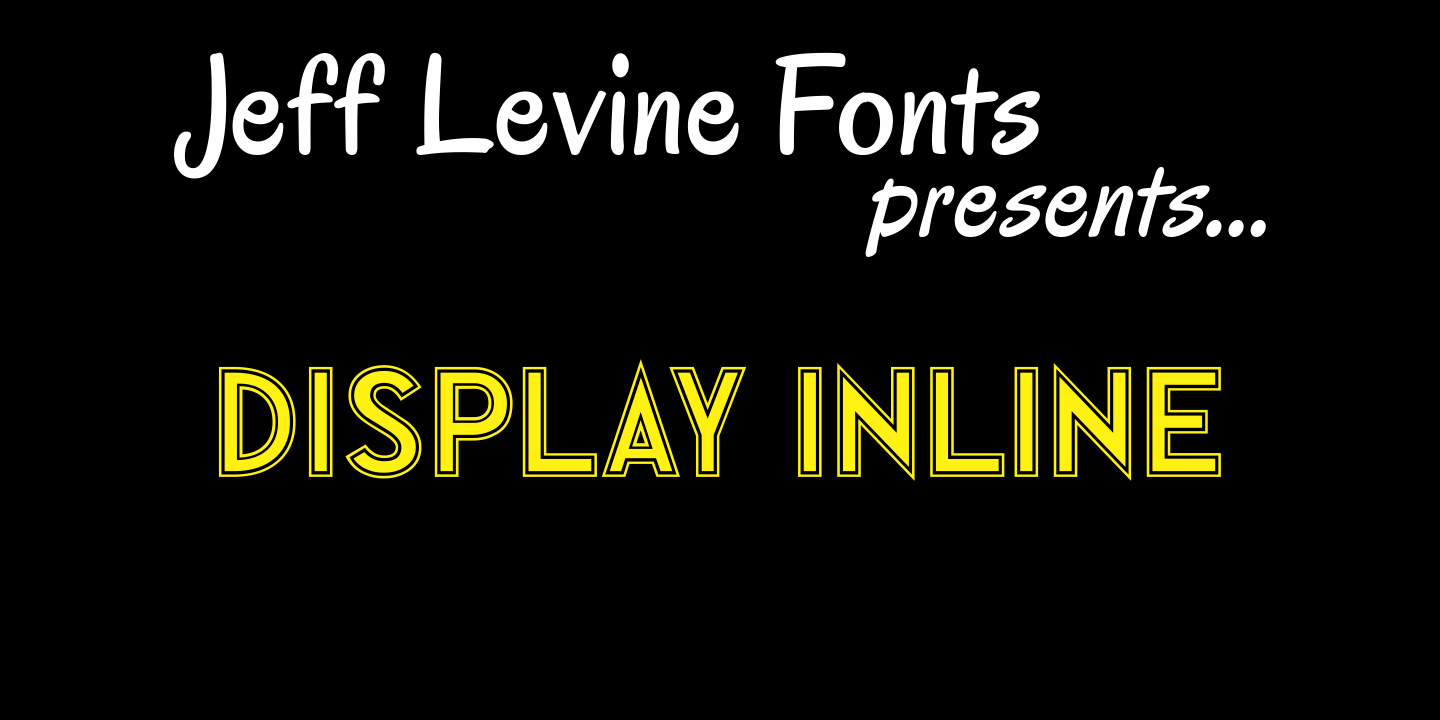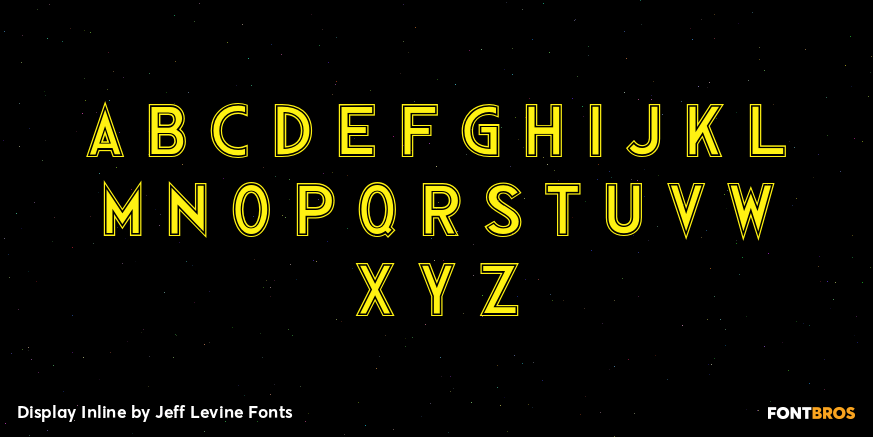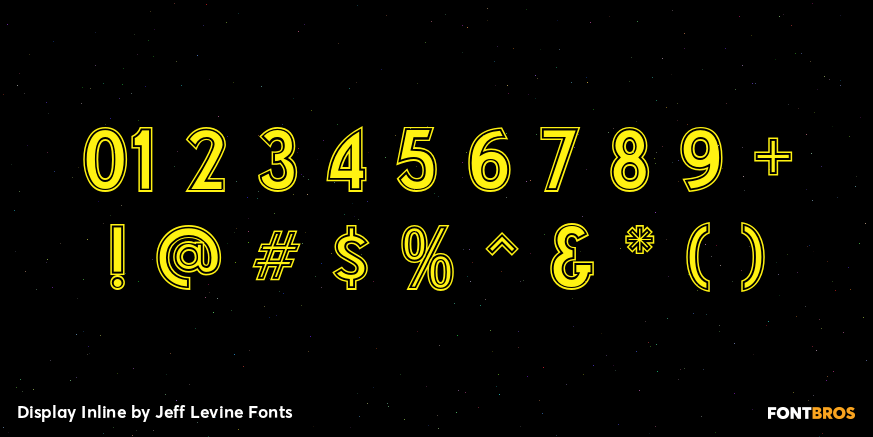
Display Inline
Display Inline JNL is a companion design to Jeff Levine's Signboard JNL font - both derived from die-cut display letters and numbers popular during the 1950s and 1960s for signs and show cards.